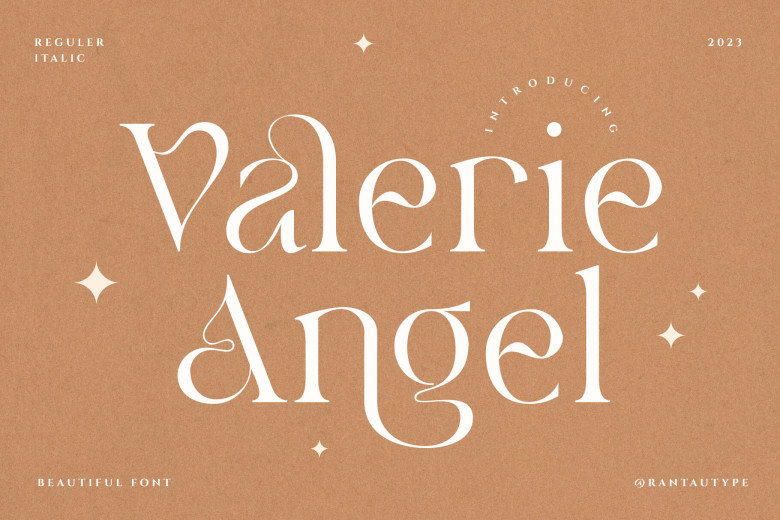
Valerie Angel Font
Valerie Angel is an elegant and graceful display serif font which perfectly captures feminine style. With soft curves and refined details to give an air of elegance and femininity. We especially love AMNWVR which shows its curves perfectly!
Valerie Angel adds a sophisticated and refined aesthetic to editorial and branding designs alike, from editorial pages and logos, to branding materials, branding collaterals and much more. Our elegant font is elegant yet stylish, classy yet modern; premium, contemporary attractive and easy to use; versatile yet modern in appeal.
Valerie Angel – separate in italic and regular is an elegant choice for any creative project that requires elegant, contemporary and chic designs for lifestyle applications like logos, titles covers branding, invitations wedding designs displays magazine posts printed quotes advertisements printed quotes product designs photography watermarks special occasions special events and more. Valerie Angel can now make a striking design.
Valerie Angel Serif Font